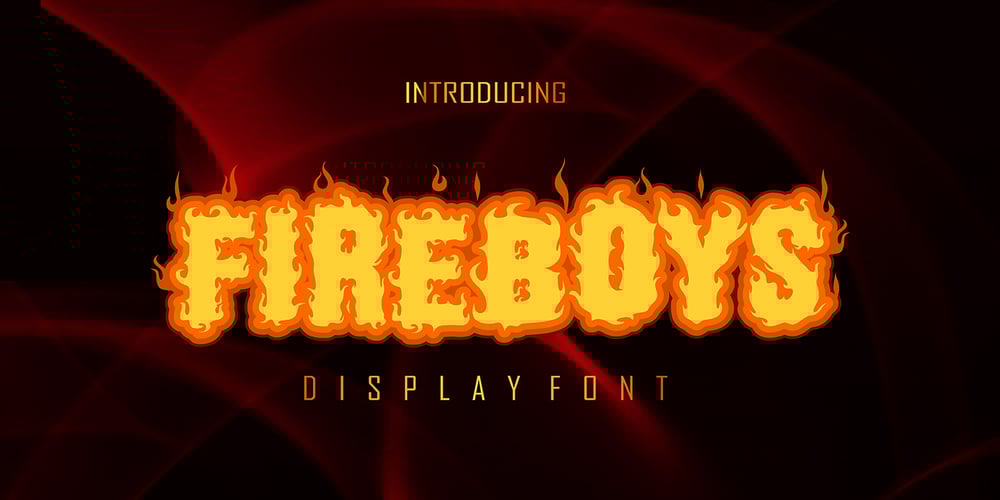
Fireboys Outline
Fireboys Outline font
Fireboys Outline Font Family was designed by Sipanji and published by Sipanji21. Fireboys Outline contains 2 styles and family package options. Introducing, Fire Boys Font, this is a display and decorative with Burning fire looks!! very suitable for logos, clothing, branding and others. very easy to use without the hassle of drawing, Get inspired by its unique feel, and turn to add a lovely charm to any crafts project just by purchasing this font you can immediately use it for all your needs.